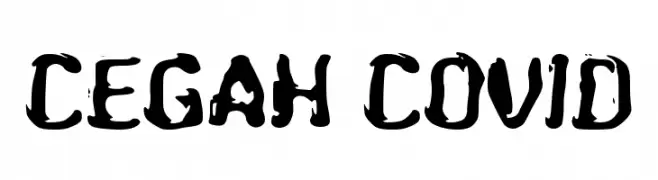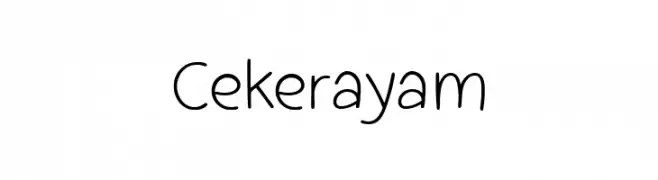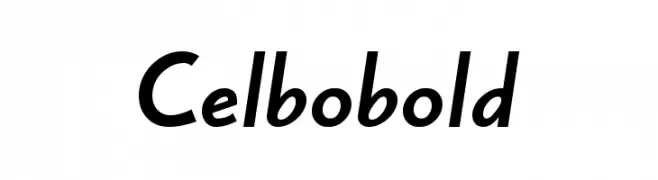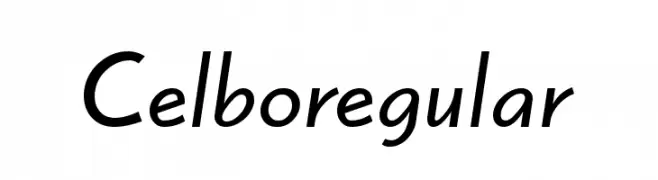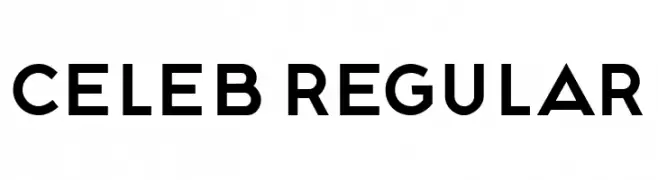
A playful, casual handwritten font with flowing, organic strokes.
A bold, hand-painted style font with dynamic, irregular strokes.
A playful handwritten font with rounded, consistent strokes and a casual feel.
A bold, slightly italic font with a modern and dynamic style.
A bold, slightly italicized font with dynamic strokes and modern appeal.
A modern, slightly italic font with clean lines and balanced proportions.
A modern, bold sans-serif font with geometric influences.